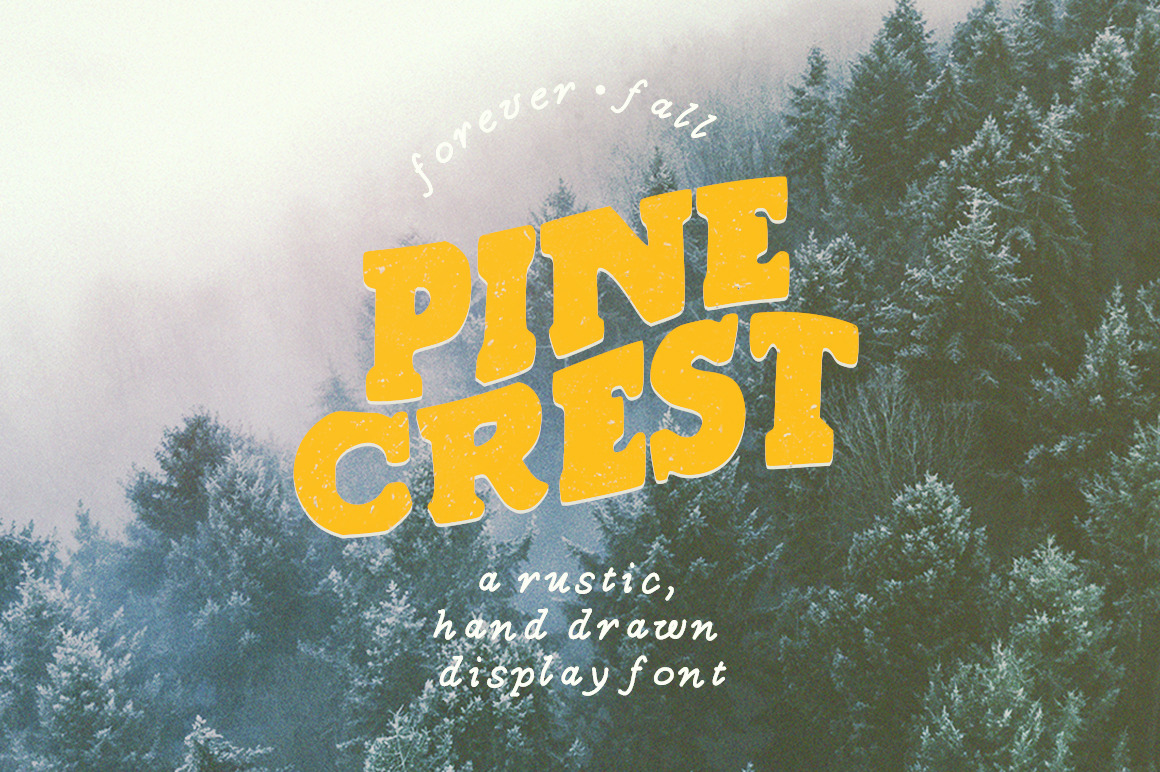
Pine Crest Rustic Serif Font
Pine Crest is a rustic, kinda retro/kinda western, thick as hell display font with serifs. It's hand drawn, a little rough, but pleasing to the eye.
Inspired by hand painted signage and the charismatic crust of small towns, Pine Crest is a great font for a sweaty beer label, a rustic wedding or party invitation, or your next t-shirt design.